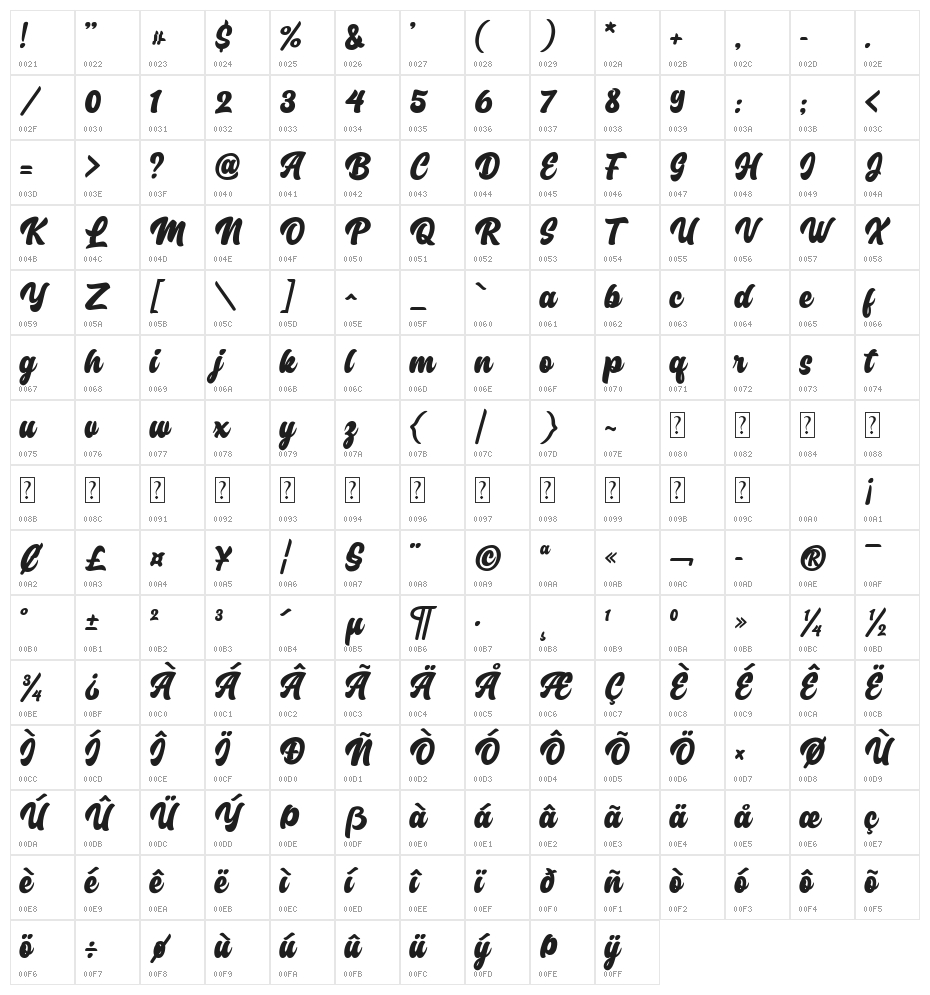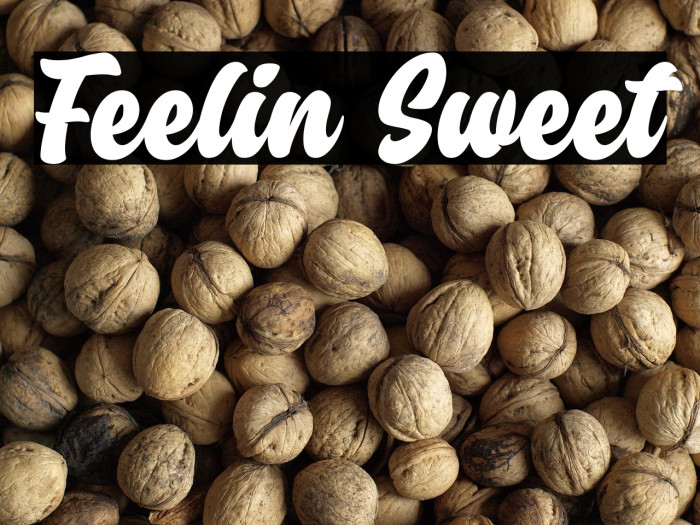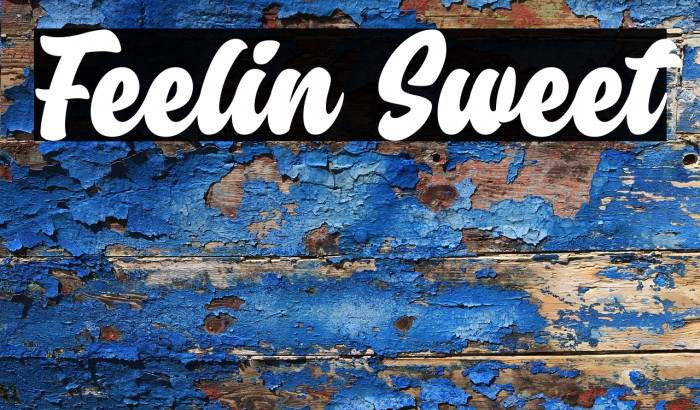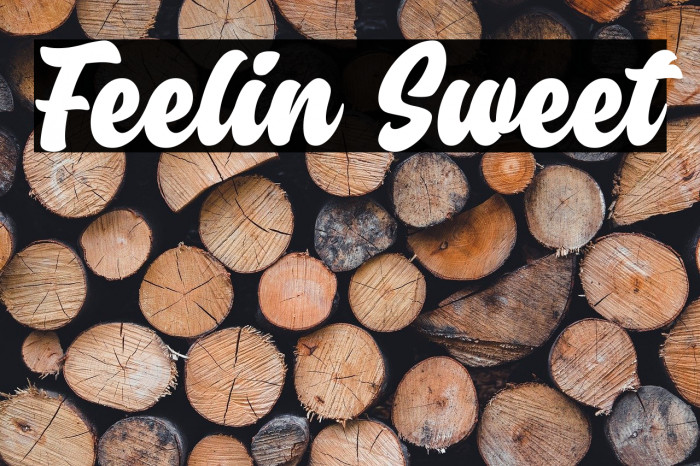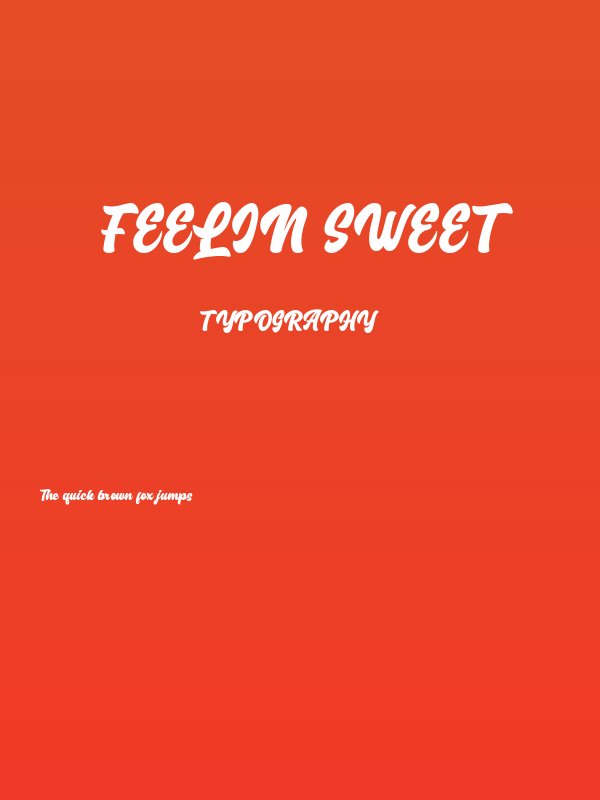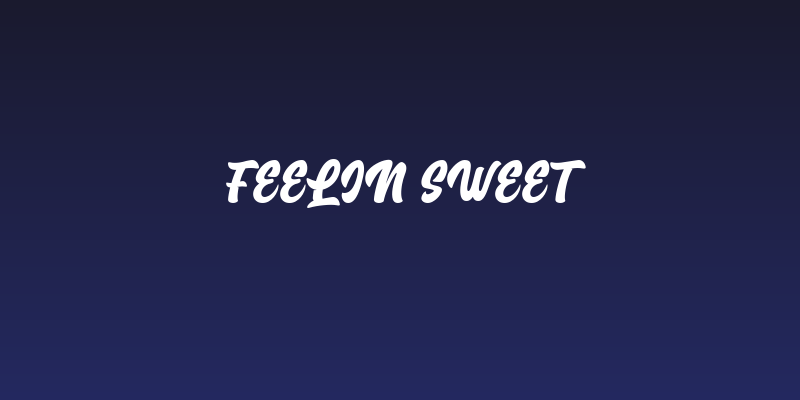
Feelin Sweet Font
Feelin Sweet Description
This font features a bold, cursive style with a playful and energetic flair. The letters are connected, creating a smooth flow that mimics natural handwriting. The strokes are thick and consistent, giving it a strong presence. The uppercase letters are slightly larger and more pronounced, while the lowercase letters maintain a uniform height, enhancing readability. Numbers and special characters are crafted with the same boldness, ensuring a cohesive look across all text elements. The font's rounded edges and flowing curves contribute to its friendly and approachable appearance.
| Proposed Projects | Ideal for greeting cards, playful branding, social media graphics, and children's book covers. |